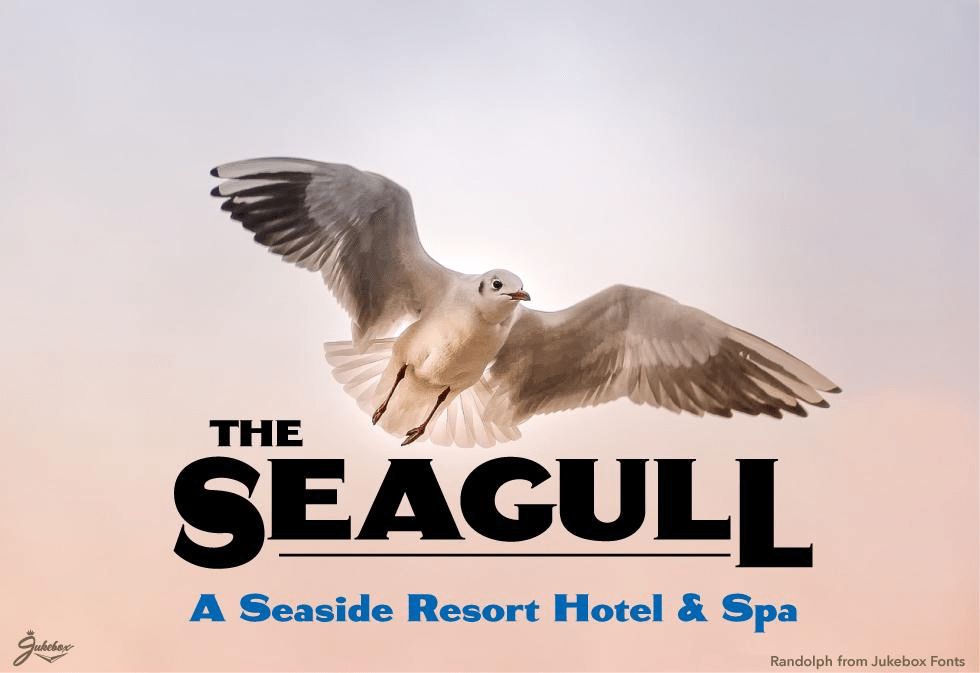
Randolph
Randolph is a serif display family with a distinctly vintage feel, shaped by striking thick-and-thin contrast that gives it a bold yet refined presence. Available in Regular and Italic, it brings a classic, styled look that feels expressive without losing readability.
With its decorative serif character and strong contrast, this two-style family is well suited to branding, packaging, poster work, labels, and other display settings where you want a more nostalgic or character-rich tone. The italic adds an extra layer of movement and flair, making it easy to build contrast within headlines and featured text.
Created by Jukebox, Randolph is a smart choice for projects that call for vintage personality, confident letterforms, and a polished display look.